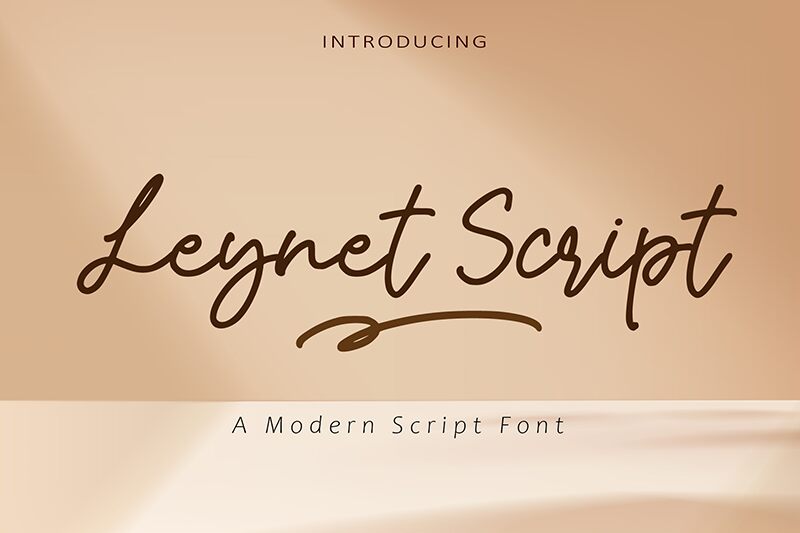
Leynet Script font by Ibrahima Studio is a free handwritten font whose letters organically flow into each other, creating wonderful words and majestic sentences. Focusing on simplicity and smoothness, it is inspired by daily life handwriting habits, modern communication and social media. Leynet Script is a new and contemporary design, but it does resemble some pretty old typography pieces at the same time. This nostalgic effect is achieved thanks to the roundness and boldness of the individual symbols.
Get the vibe! Let your imagination guide you! Find your target audience and achieve the best artistic touch and visual impact. Now coming to some of the potential uses of Leynet Script, make sure to put it to best personal and commercial use in logo design, free font, magazine headings, fashion publications, posters, greeting cards, invitations, online posts, etc. There are so many ways to put this font to use!